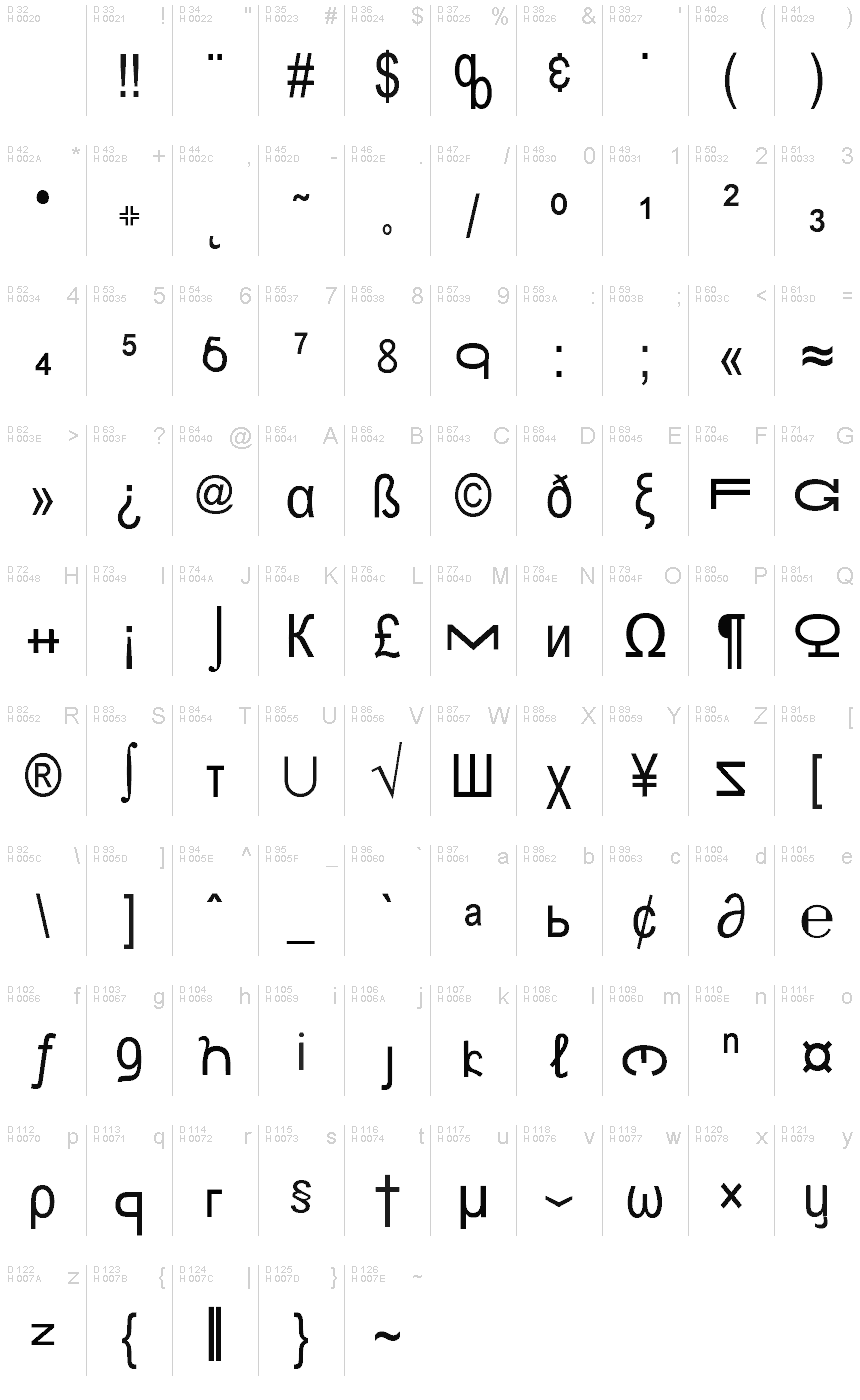
Bungle City
Bungle City font by StimulEye Fonts is a free decorative display typeface that looks like a lively city of letters, each character bent and stretched with its own oddball charm. Tall, straight stems collide with squiggly curls and unexpected loops, giving words a wobbly, hand-twisted energy. The mix of tight and loose shapes feels slightly chaotic but still readable, like graffiti that’s been cleaned up just enough for print.
Using Bungle City, you get a playful, offbeat voice that shines on posters, party invites, zines, kids’ book covers, quirky logos, packaging, and social graphics. This free font works best big, where its strange curves and surprise angles can really show. Pair it with a plain, understated sans serif for body text so the wild personality of Bungle City stays in the spotlight.